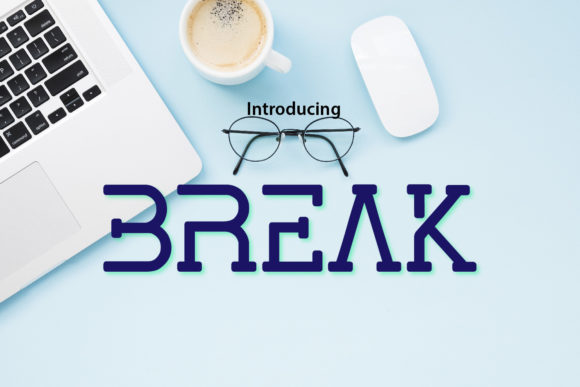
Introducing the Break Font: A Typographic Masterpiece for Album Covers
In the realm of typography, the Break Font emerges as a captivating masterpiece—a slab serif font that exudes minimalism, elegance, and versatility. Its carefully crafted characters, reminiscent of finely chiseled stone tablets, possess a timeless charm that transcends fleeting trends. With its crisp edges and confident strokes, the Break Font commands attention, inviting your audience to delve into the captivating world of your album artwork.
As a designer, you understand the profound impact that typography can have on your creative vision. The Break Font is not merely a collection of letters; it is a gateway to unlocking the emotions and stories embedded within your music. Its clean and simple style provides a sturdy foundation upon which your album's visual identity can flourish. Whether you seek to portray a raw and edgy vibe or a classic and refined aesthetic, the Break Font possesses the chameleon-like ability to adapt to your unique artistic vision.
Imagine your album cover adorned with the Break Font's bold and distinctive characters. The font's strong presence commands attention, drawing listeners into the depths of your musical universe. With each letter, you craft an indelible mark on their consciousness, leaving them captivated by your artistry. The Break Font is not just a font; it is a visual symphony that resonates with your audience on a profound level.
The beauty of the Break Font lies in its versatility. Its understated elegance allows it to seamlessly blend into various design aesthetics, becoming an integral part of your album's overall narrative. Whether you are creating a cover for a rock album, a folk EP, or an electronic mixtape, the Break Font possesses the remarkable ability to elevate your artwork to new heights of sophistication and impact.